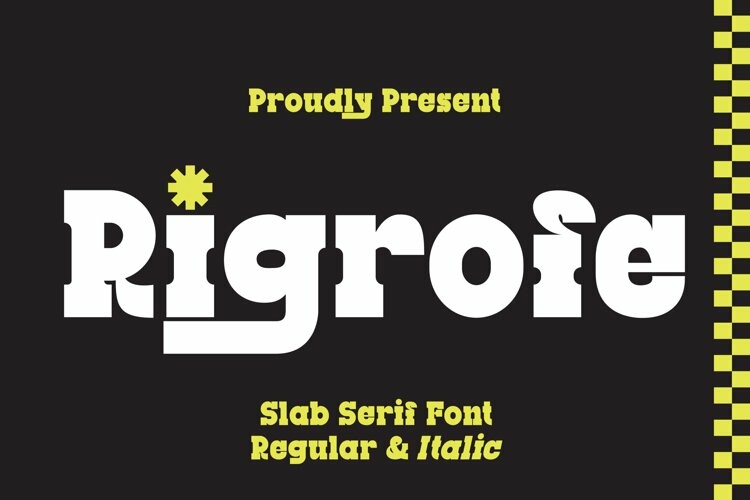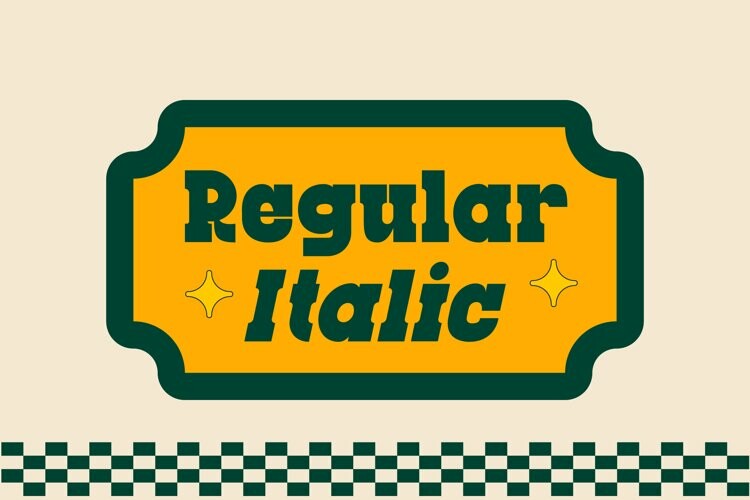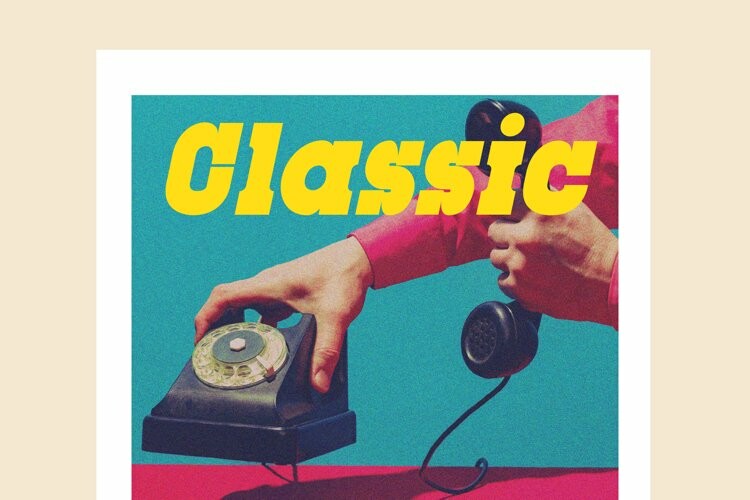
FontBundles - Rigrofe - Slab Serif Font 2521261Rigrofe is a slab serif font designed to add a touch of nostalgia to any project. It has a cool and playful look that can be used for logos, branding, invitations, stationery, wedding designs, social media posts, and so much more. Featuring the perfect amount of trendiness, this font will make your designs come to life.